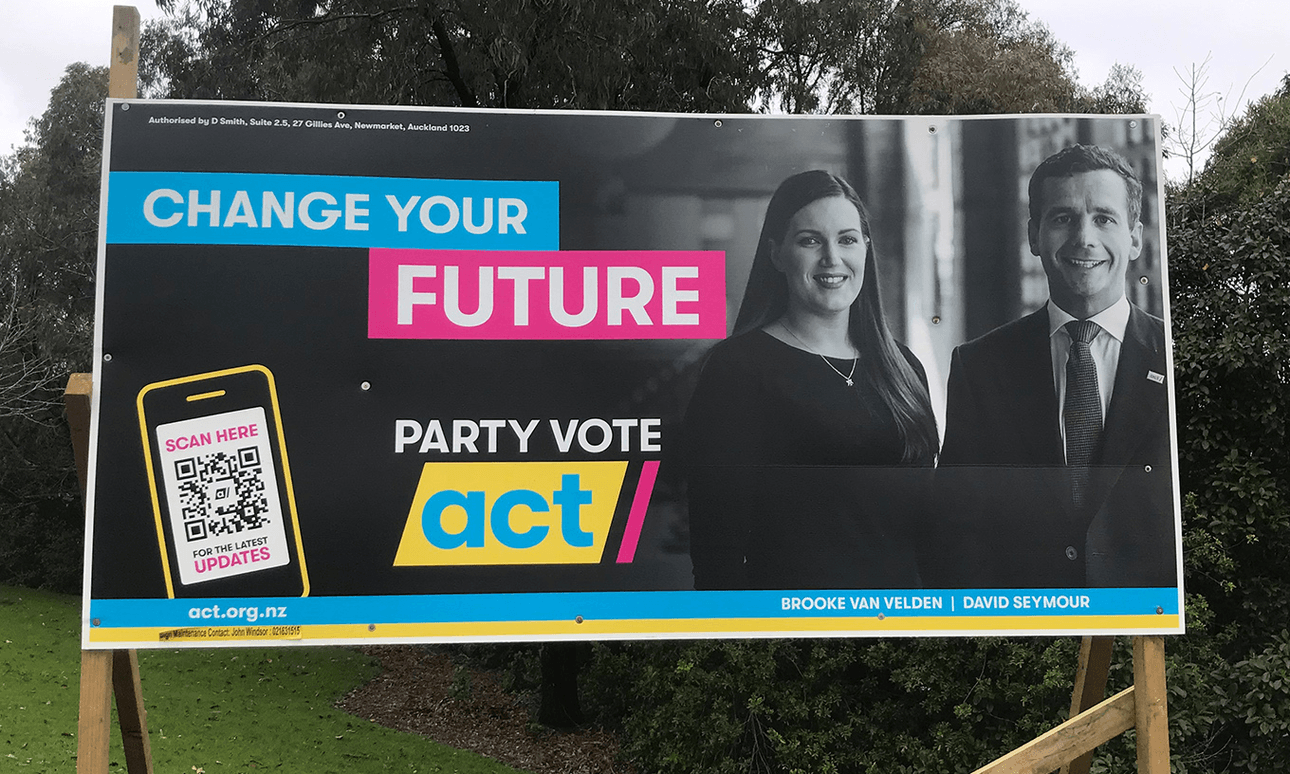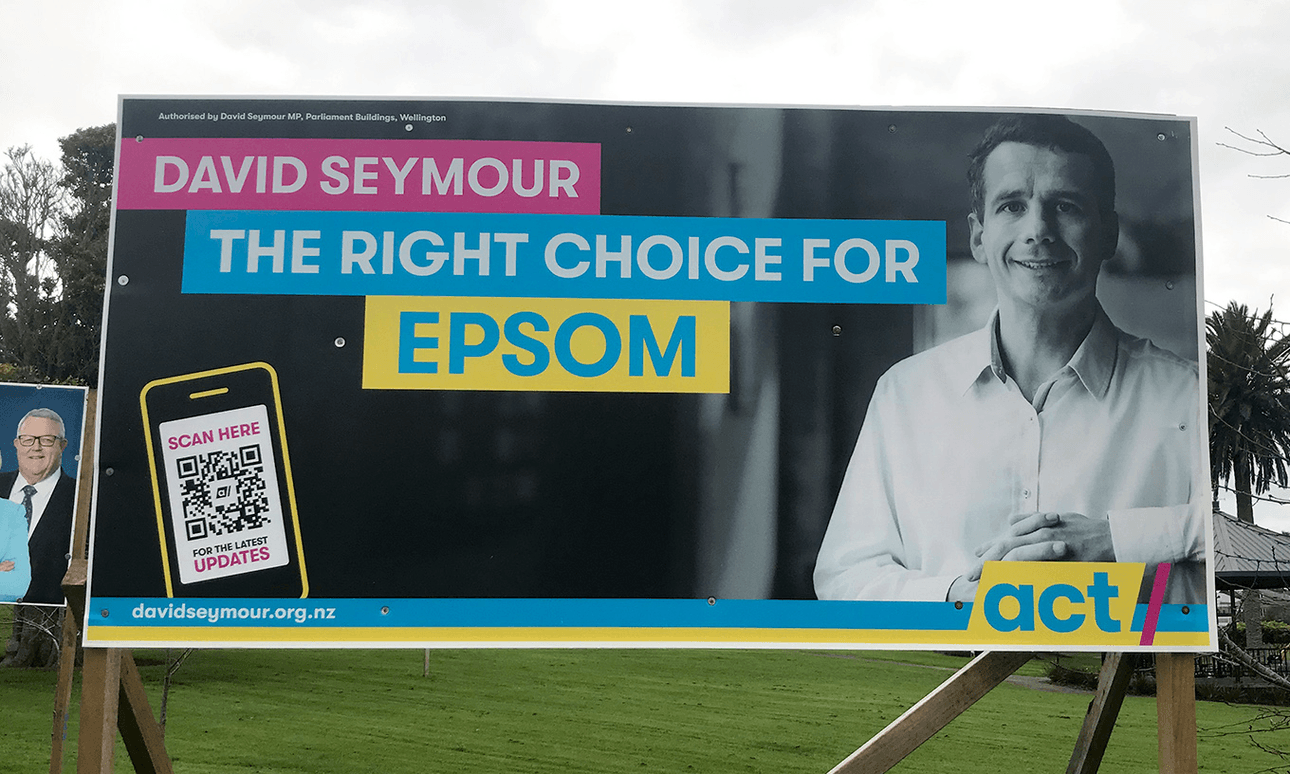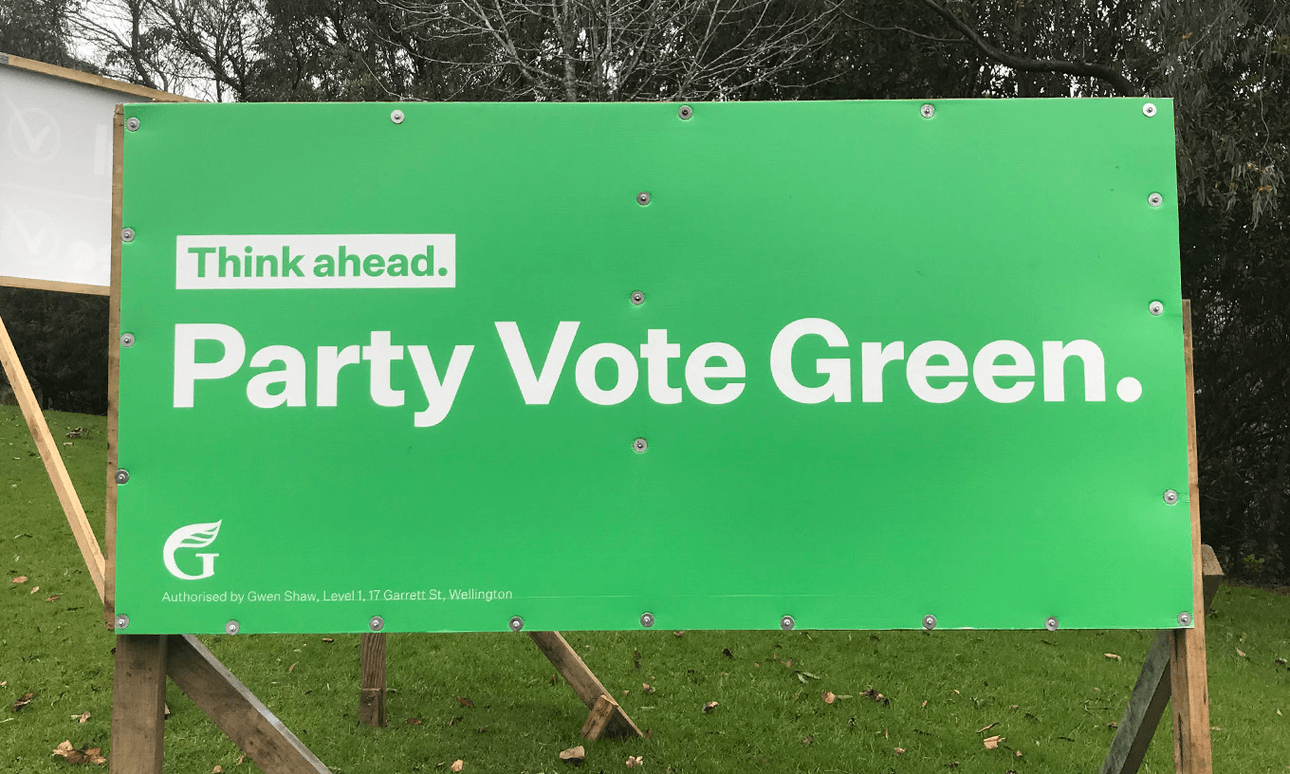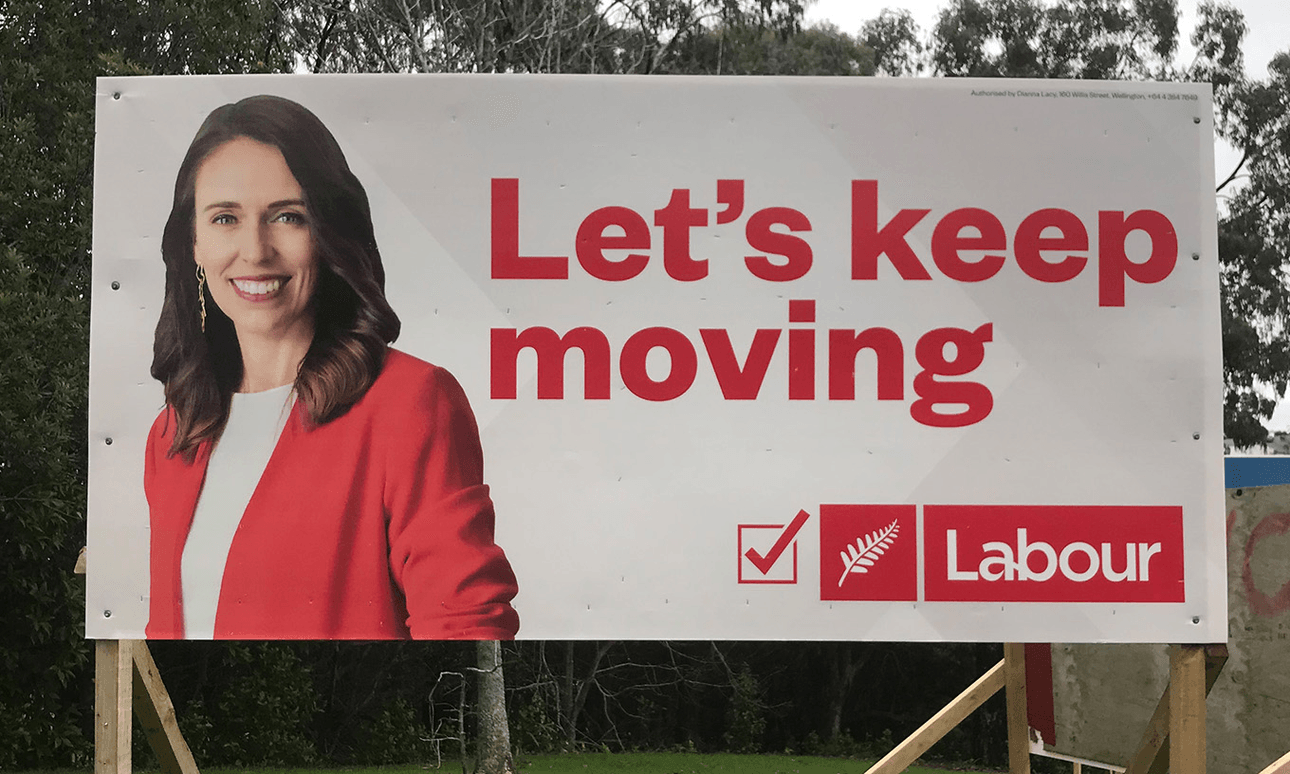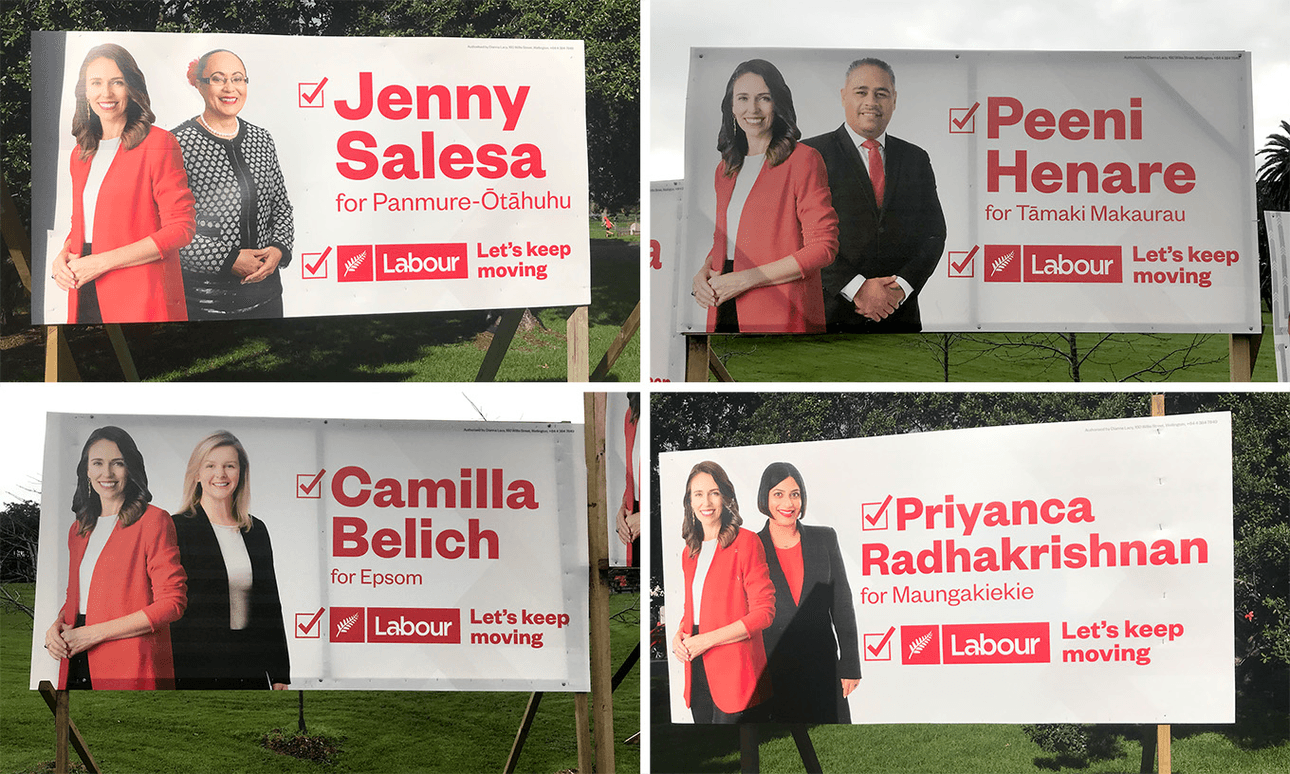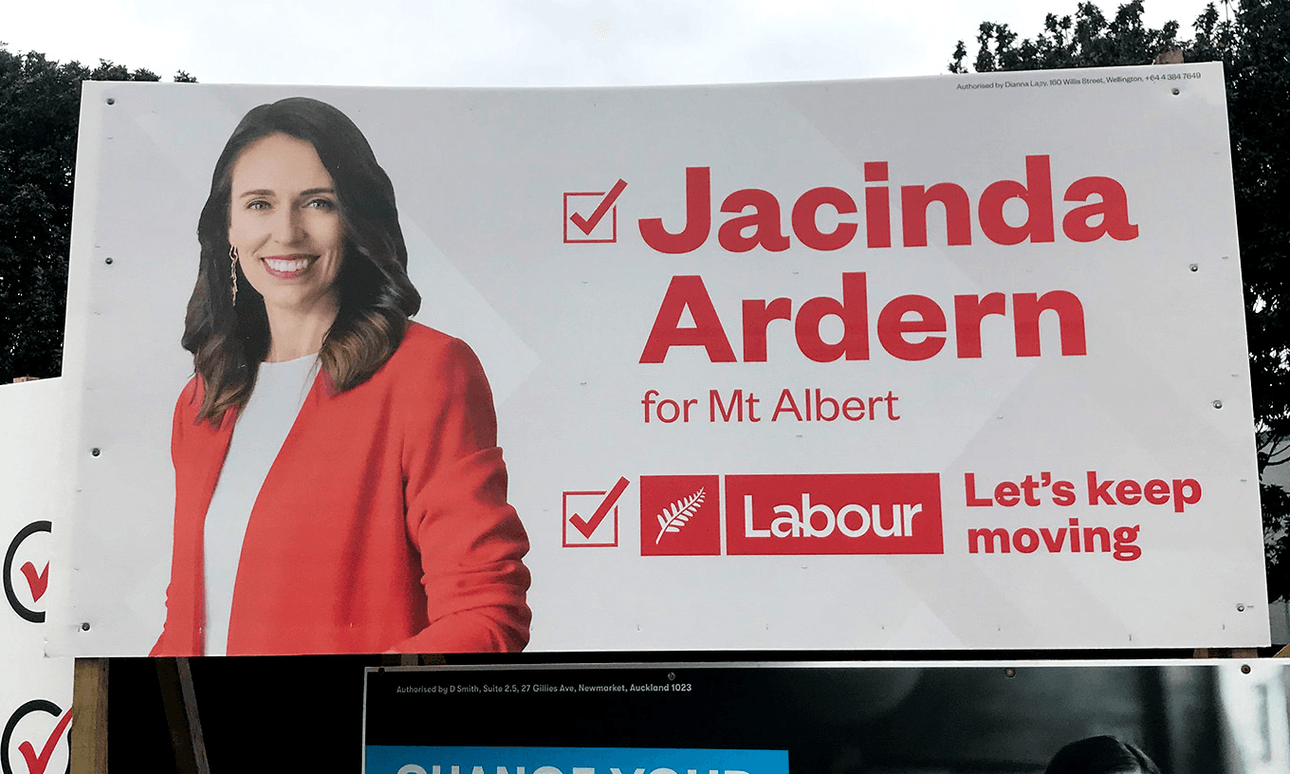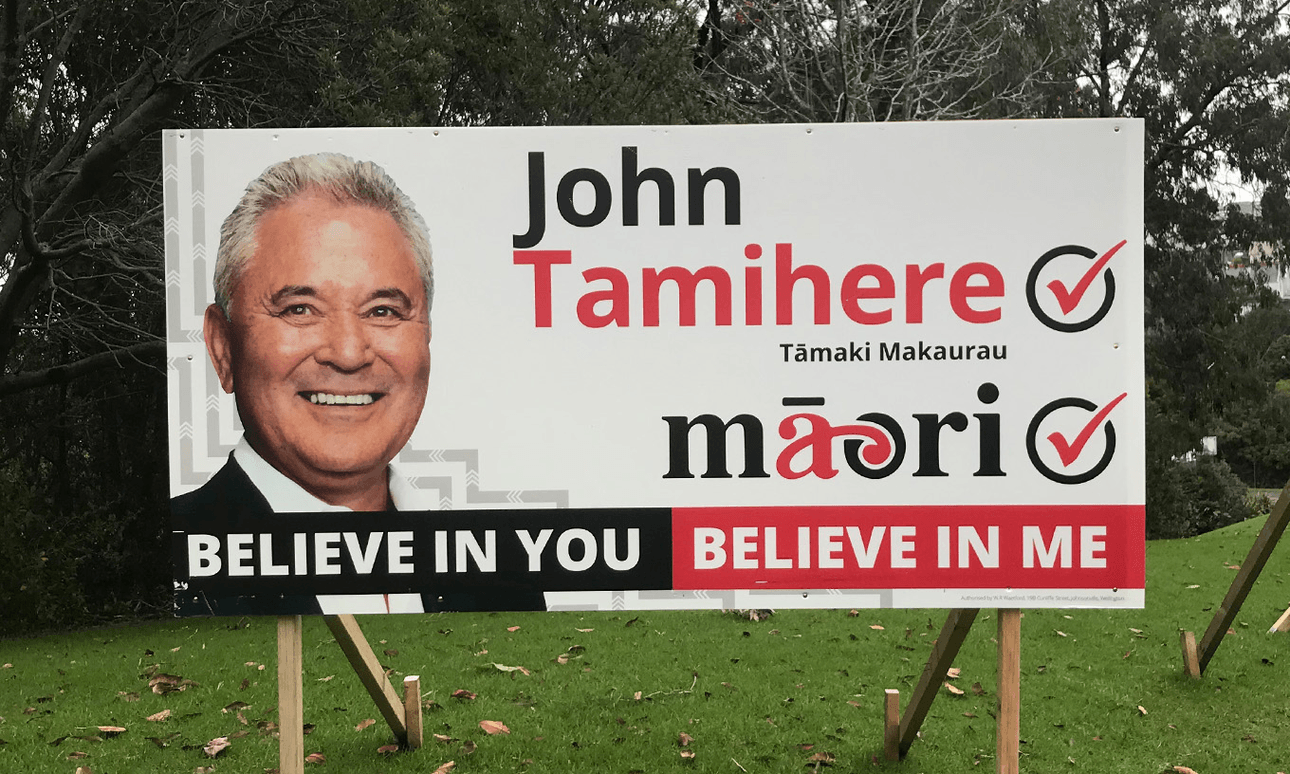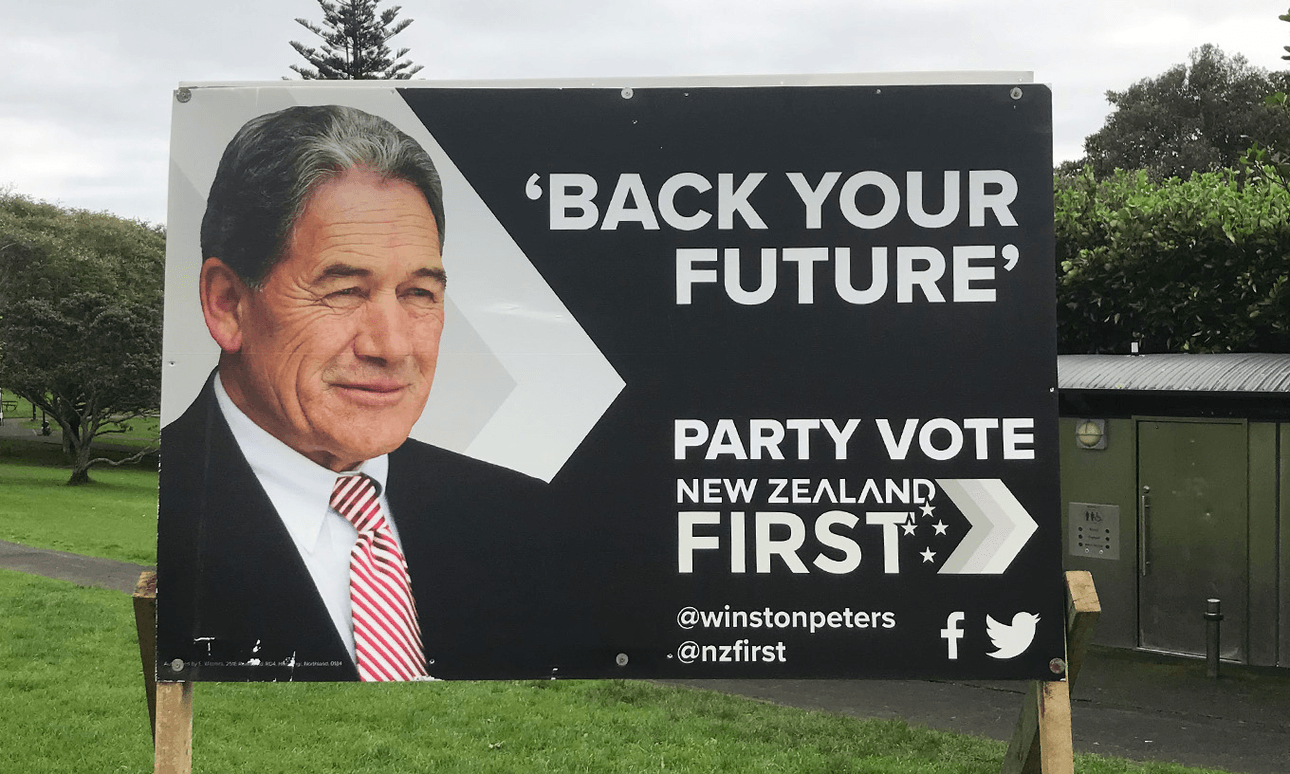
In contrast with last year’s often terrifying local election offerings, 2020’s election signage is big on bold colours and simple messaging. Spinoff creative director Toby Morris delivers his analysis of the best and worst designs.
All along suburban fences and major intersections around New Zealand a virus is spreading. Desperate faces splayed out across corflute and wooden frames, calling out vague and indecipherable self help affirmations in the hope of catching our eye. Save me, they say. Make me real, send me to Wellington. Thankfully, you don’t have to look them in the eye, we’ve done it for you.
Yes, it’s time again to review New Zealand’s election hoardings. The fonts, the colours, the slogans, the forced smiles and everything in between. This year most of the parties have one general “party vote” hoarding, and a separate but related template for the candidate ones. I’ll go through the parties one by one, in alphabetical order, and try to not to let my feelings about policies or track records affect my judgement. To be clear, we’re reviewing the designs, not the parties or candidates, and seriously, don’t let this alter your vote.
Act
Act has put the party into Act Party, combining the colour scheme of an early 2000s nu-rave band with a clean sans serif font and devil-may-care all lowercase logo. I don’t hate the colours and font choices – it’s bright and feels young and confident, but it’s so colourful that it’s turned the candidates black and white. They recede nervously into the background, wallflowers at their own party.
But the big news is that on the party vote hoardings there are two of them. More than one! Look how happy David Seymour is, he can’t believe it! Brooke Van Velden looks slightly less enthusiastic. Is she sure she wants to sit next to this guy for the next three years?
Lastly, in another new development, they’ve also included a QR code that will apparently tell us the latest updates on something. The QR code is even on a phone, to remind us how QR codes work.
Honestly, points for trying something different, and QR codes are kind of begrudgingly almost sort of nearly back in the public consciousness thanks to the smash hit contact tracing app, but someone didn’t really think this all the way through. As a designer making billboards or hoardings or street posters, you can guarantee that halfway through someone will always ask “but does it makes sense from a moving car?”. And annoyingly, it’s a useful question. If anyone dies in a fiery crash after hanging out a car window trying to scan it, that’s on you Seymour. (Brooke, you are new, you get one free pass).
Slogan check: vague, could be for any party.
The Act candidate posters follow a very similar template, and it works. It’s a nice photo, but again the black and white means his face is the third or fourth thing your eye gets to. With solo Seymour the pink and yellow suddenly takes you back to the unforgettable vision of him twerking in lycra in national TV. On the plus side, the colours also give you some Fresh Prince vibes, which is much cooler than Act has ever actually been.
Green
Simplicity! Clarity! The colour green! If you’re into those, you’ll love this hoarding. This year the Greens have gone for a strong, straightforward approach, with their actual slogan playing second fiddle to a basic call to action command. No photos, no leaders, no decorative elements, just five words (the legal stuff doesn’t count) a tiny version of the logo, and a lot of the colour that is also their name.
I have a theory that design trends are like a pendulum oscillating slowly between states of florid decorative embellished lavishness on one end and spare minimalism on the other. Right now we’ve swung right to the minimal end, and we’re seeing it across all the hoardings this year: no gradients, no sparkles, no drop shadows, no serifs even. Nothing pretty or decorative or “fancy” – just simple humble sans serif fonts, clean flat colours and straight photos. Maybe it’s a looming recession thing. Sensible, sober times.
Of everyone this year, the Green hoarding maybe sums this up best. It’s a probably a bit of missed opportunity to not remind the public who the leaders are, but it’s actually on brand. It’s tote bags, unbranded minimal clothes in sensible breathable fabric, recycled cardboard in your Marie Kondo-ed house. Quality, clarity, no fuss and no frills.
Slogan check: Thinking ahead is very Greens, so it makes sense, but it’s not super inspirational. In other party materials the full slogan is “Think Ahead, Act Now” but I guess you can’t put another party’s name on your hoarding, can you, so they’ve only used the first half here. And put it quite small.
Individual Green candidate hoardings are usually a rare sight, but this time in central Auckland we’re seeing two at once. Design wise these are much more conventional, using a full bleed photo and tick icons. Somewhat strangely they’re ever so slightly different (green ticks vs white ticks?) but they’re both well done – nice photos and a clear layout and hierarchy of elements.
I don’t want to dwell on judging photos here too much, but Marama Davidson’s deserves some extra discussion. The formula and style of these photos is normally so rigid and formal that it’s kind of stunning to see her pictured in a family setting. I like it. Quite a lot. More people looking like humans on hoardings please.
Slogan check: Gross. Doesn’t make grammatical sense (back from where?) and the thought is nasty.